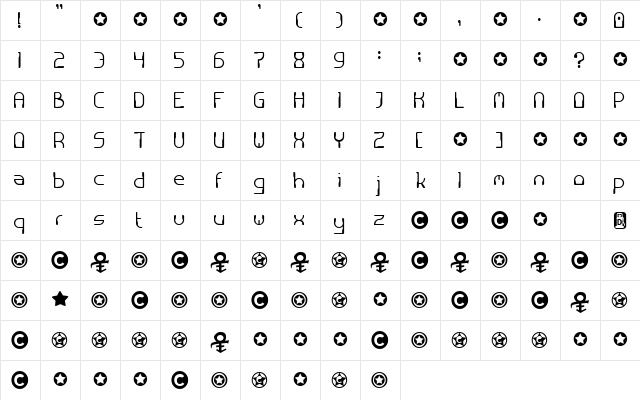
PhysicsAlpha Regular
Design Context for PhysicsAlpha Typeface
PhysicsAlpha takes a measured approach to typography — its balanced proportions and neutral character make it a reliable workhorse for both digital and print work.